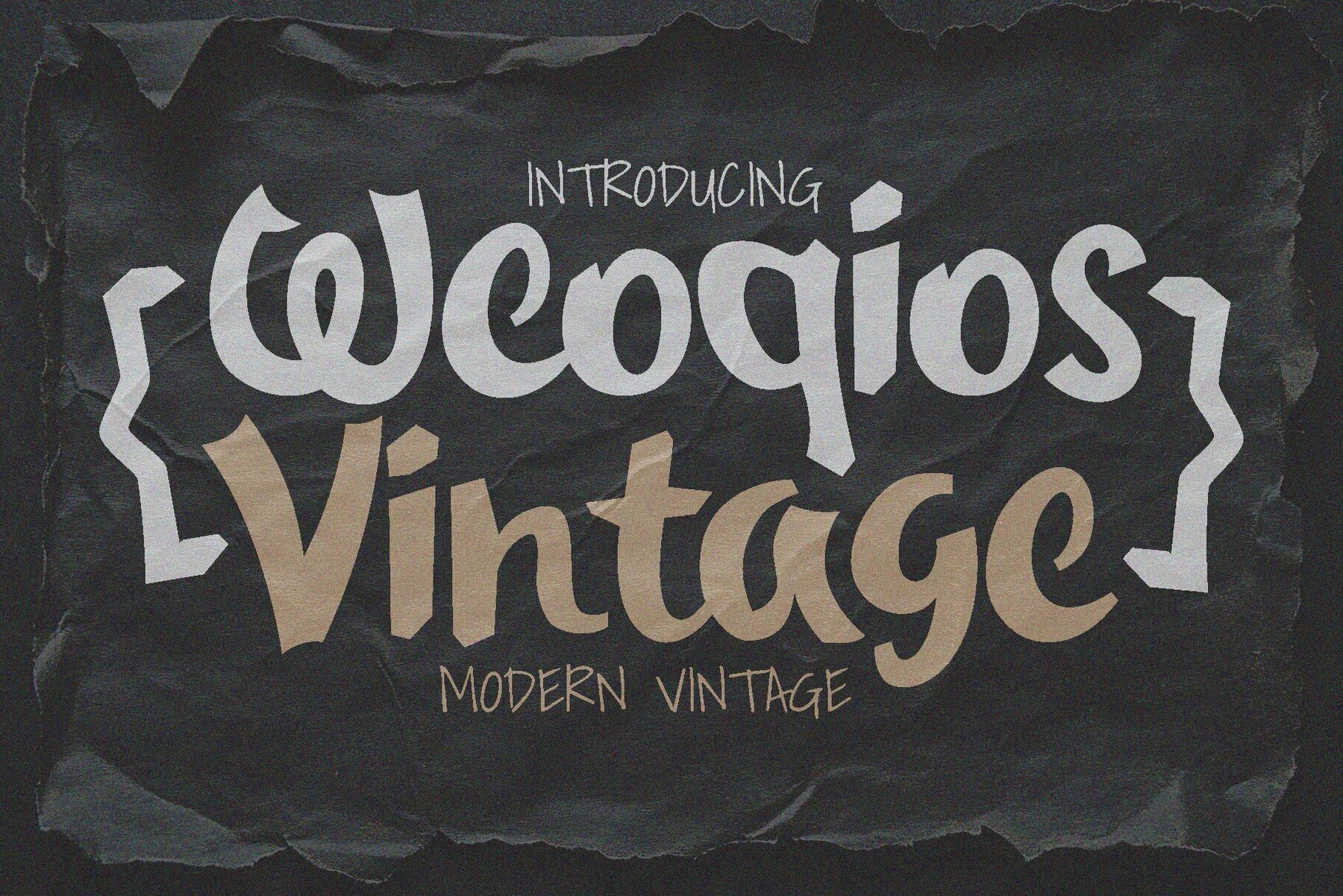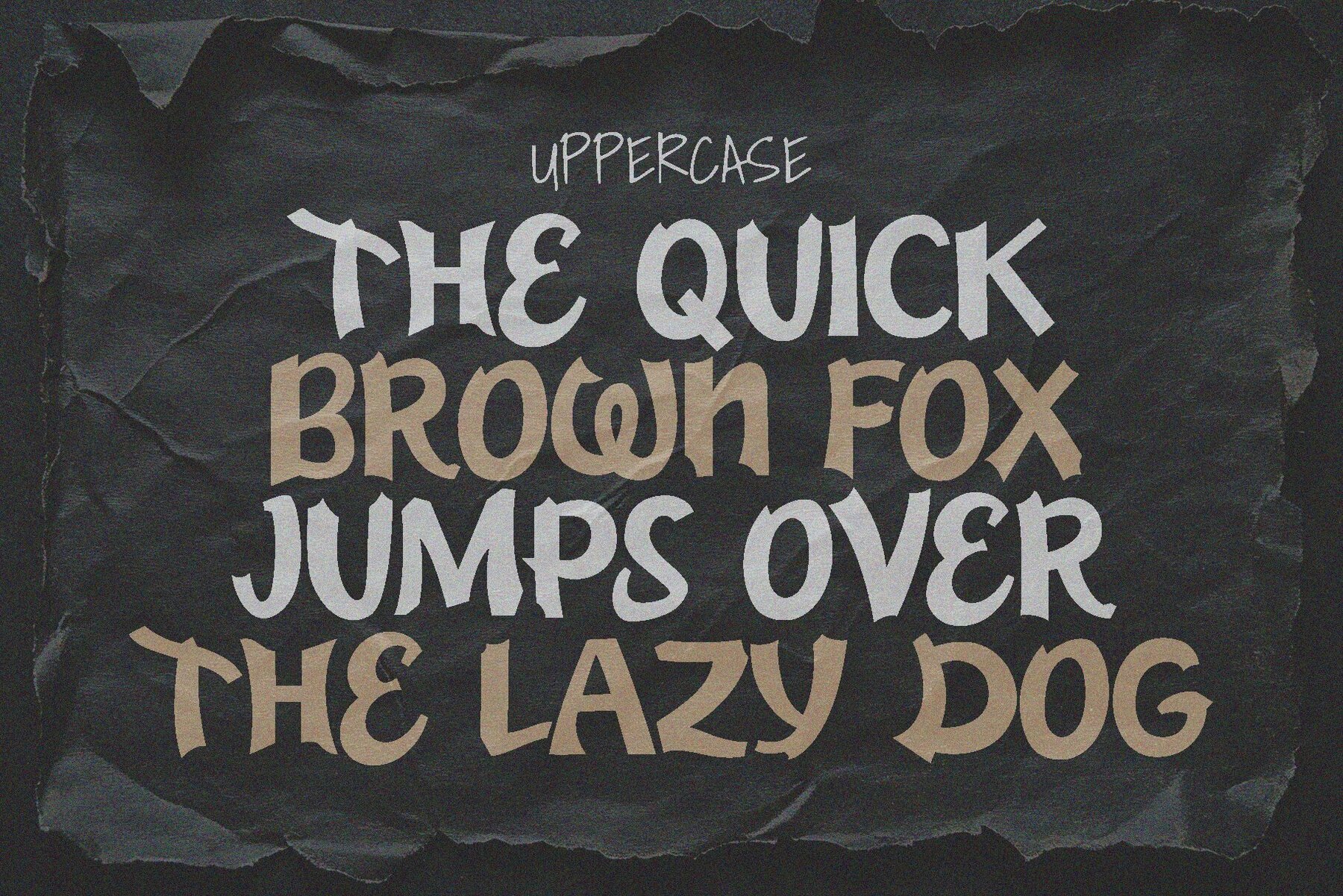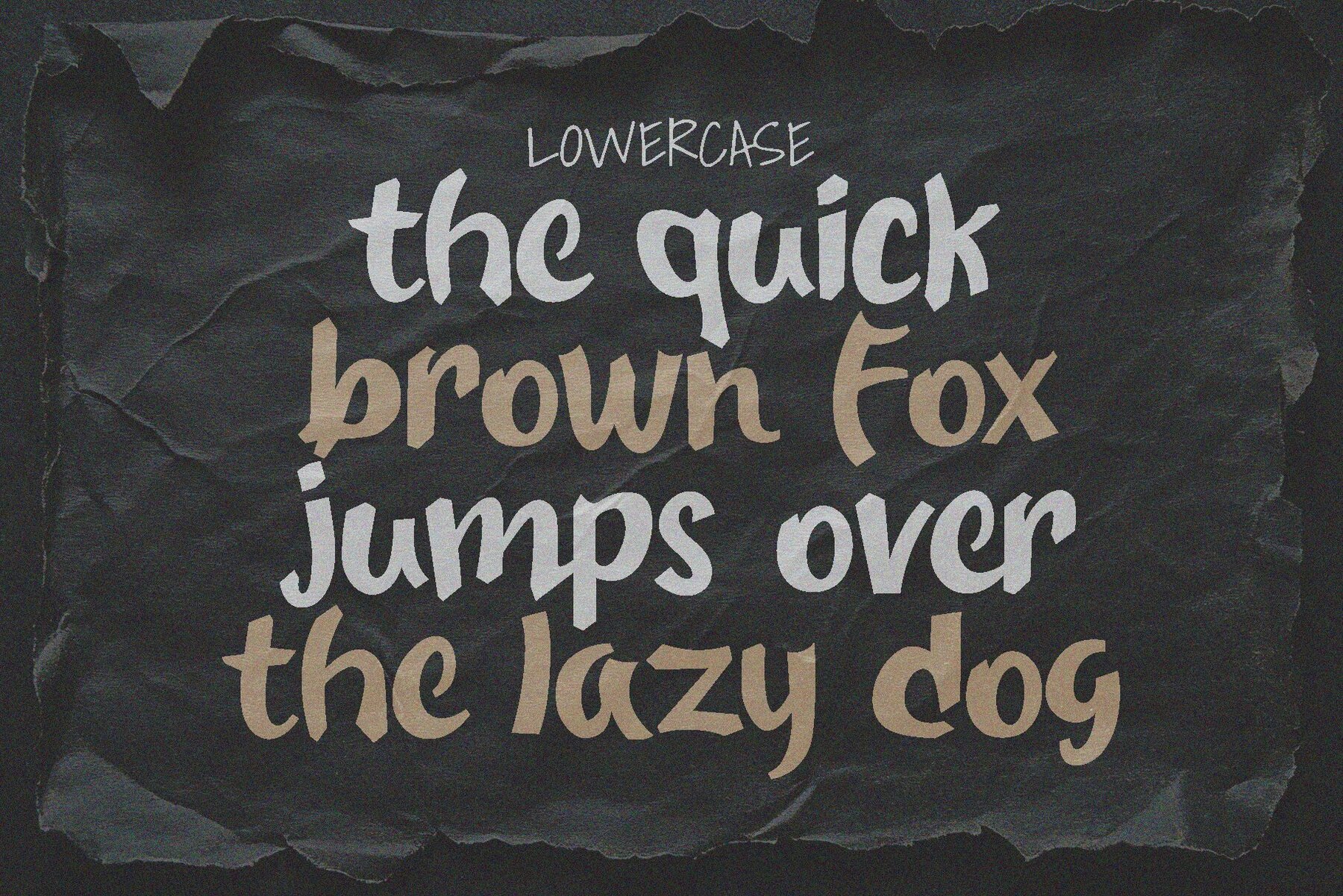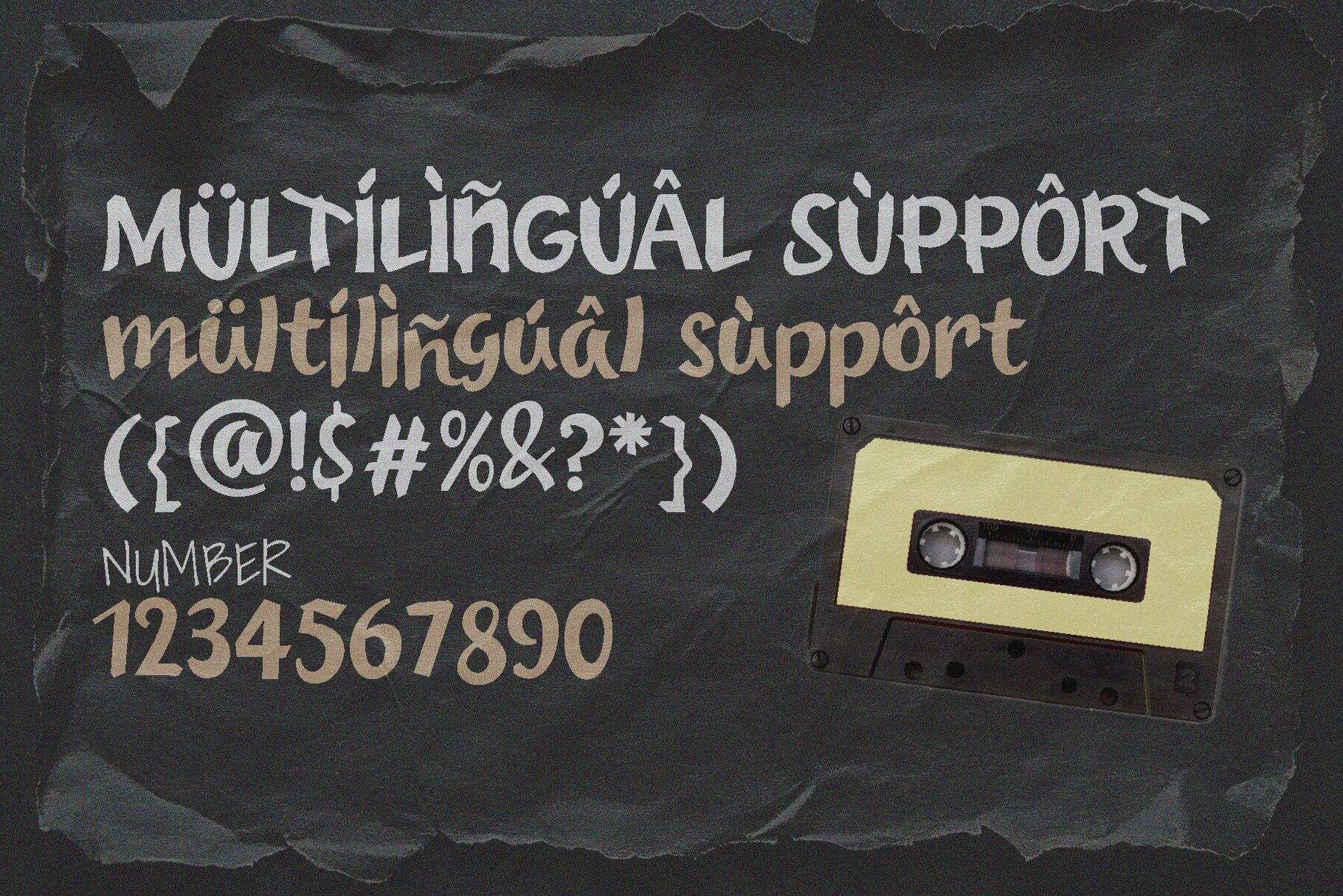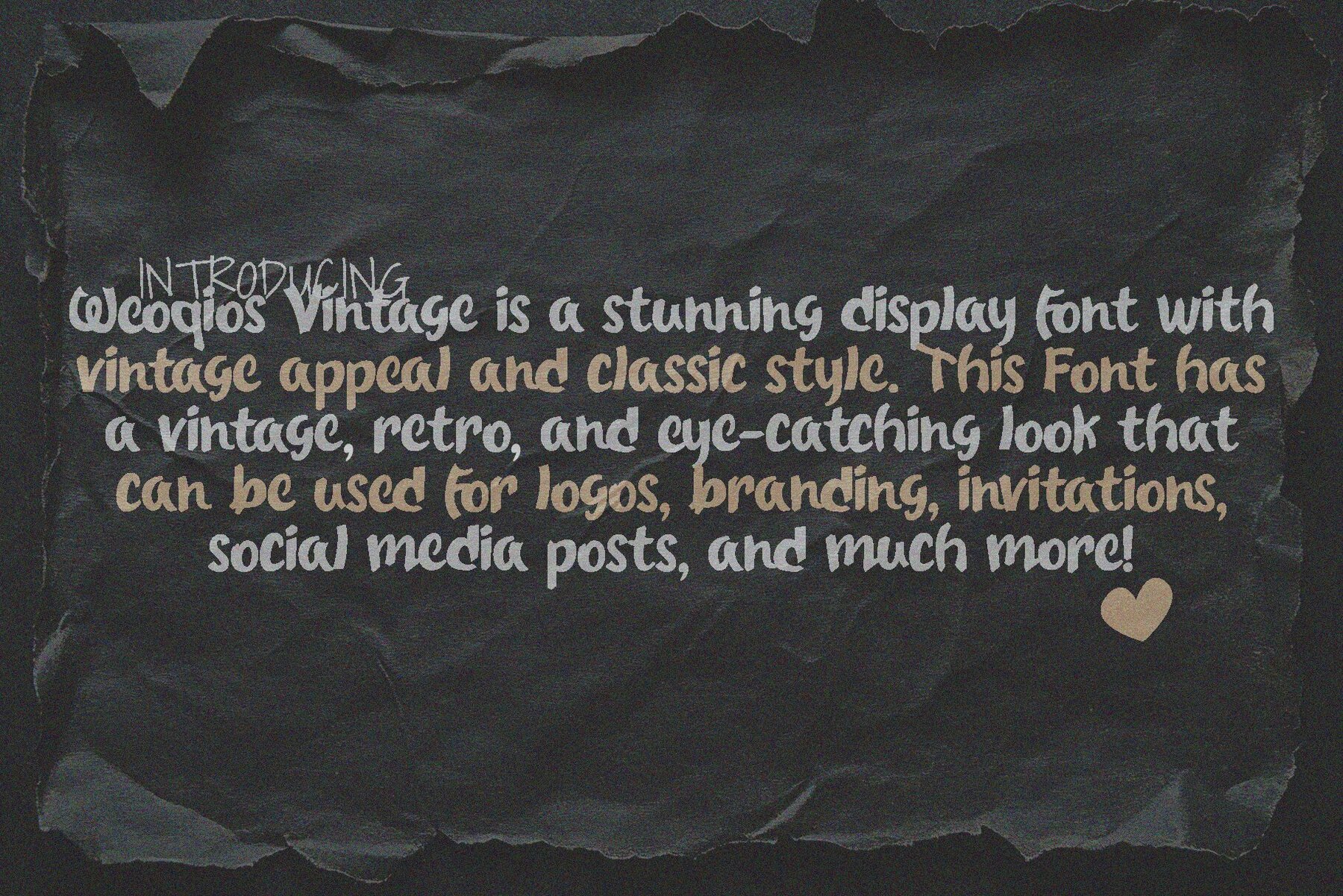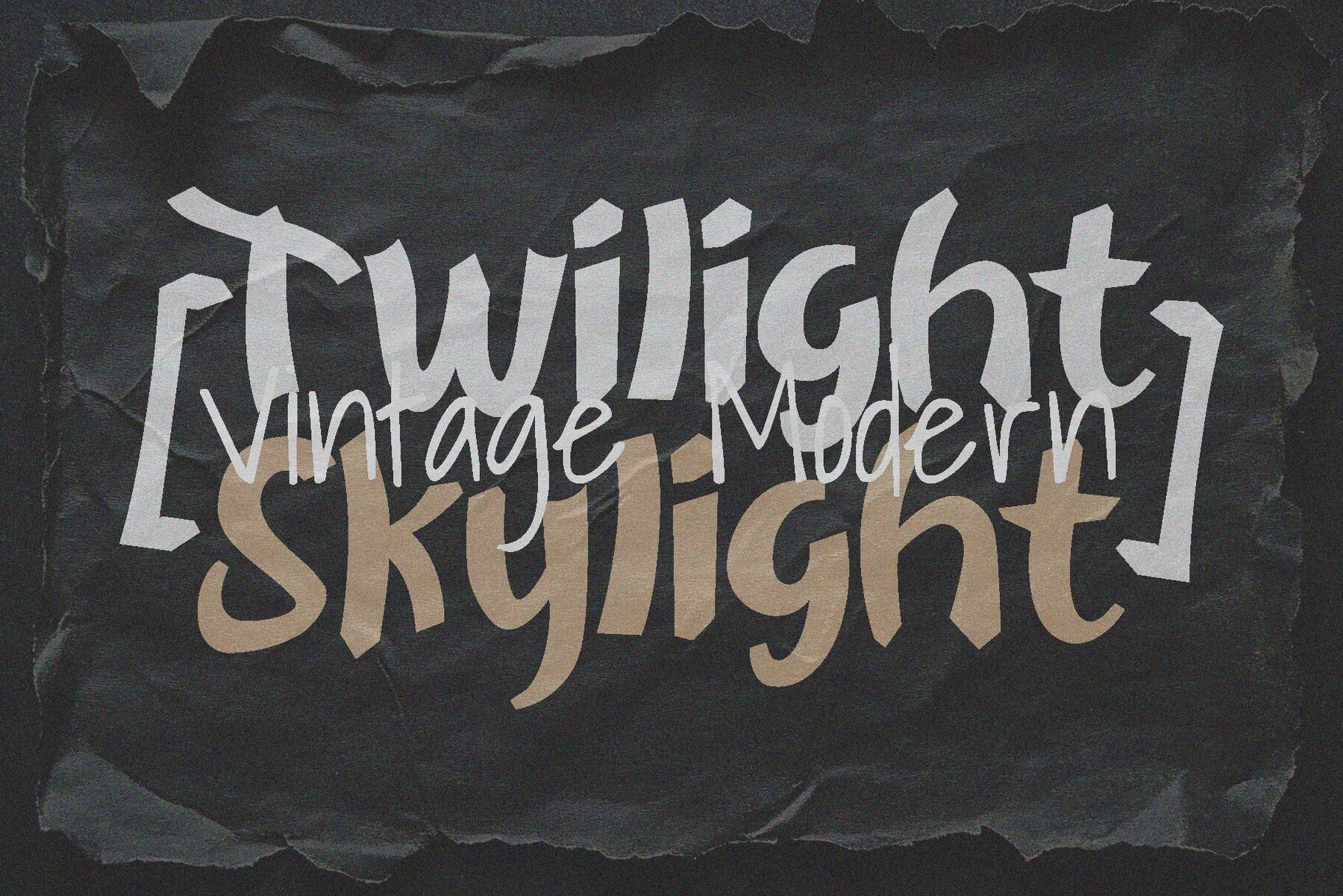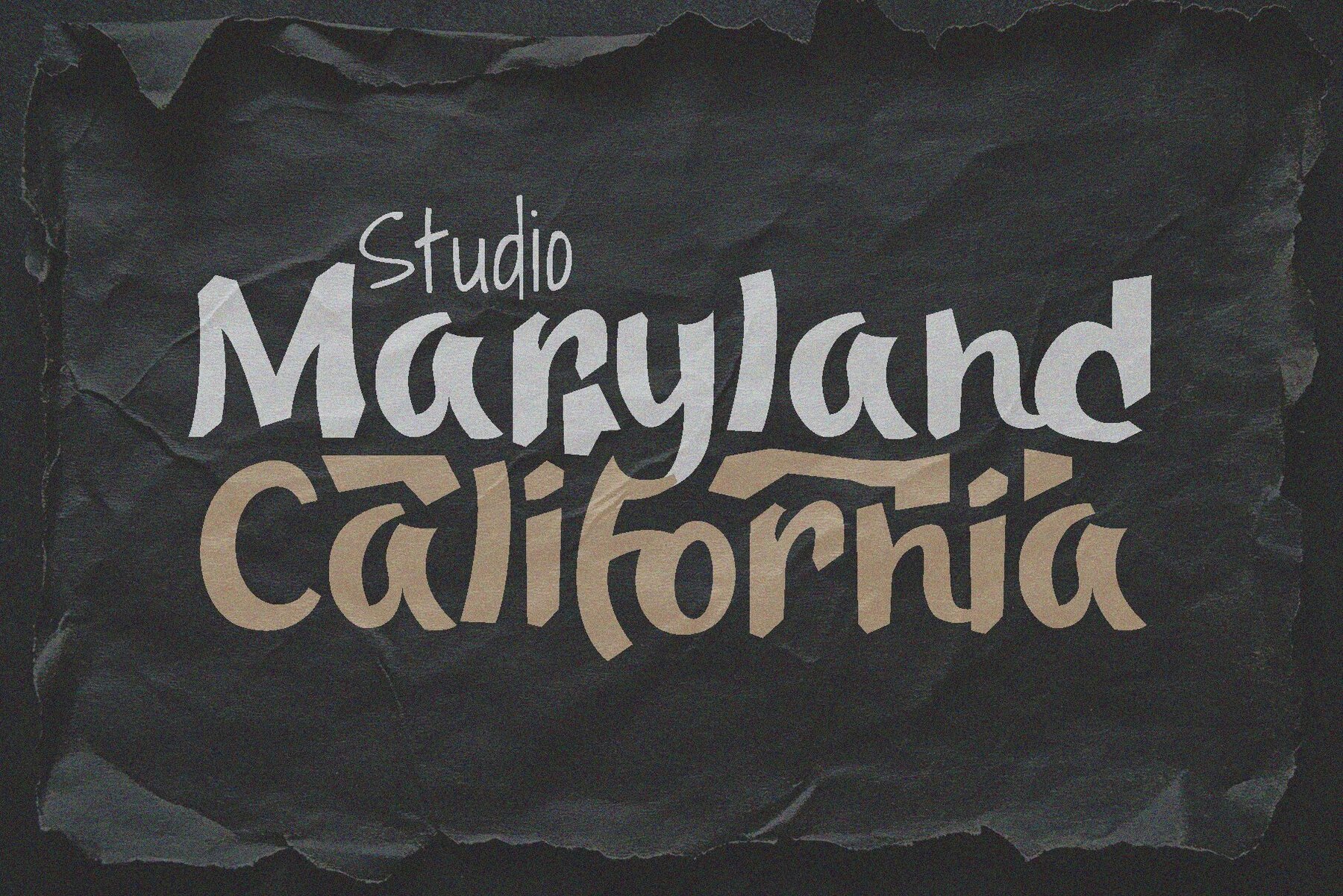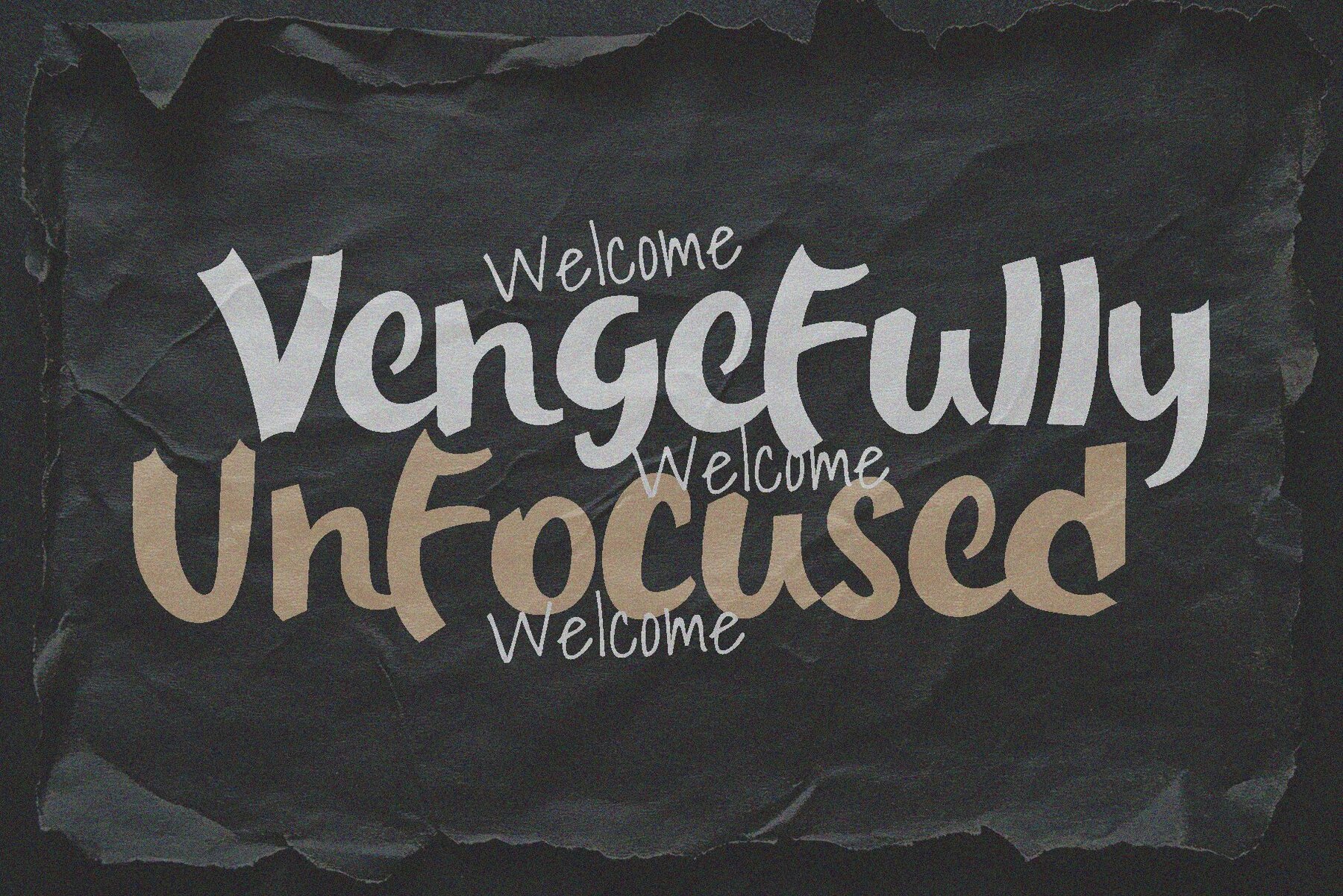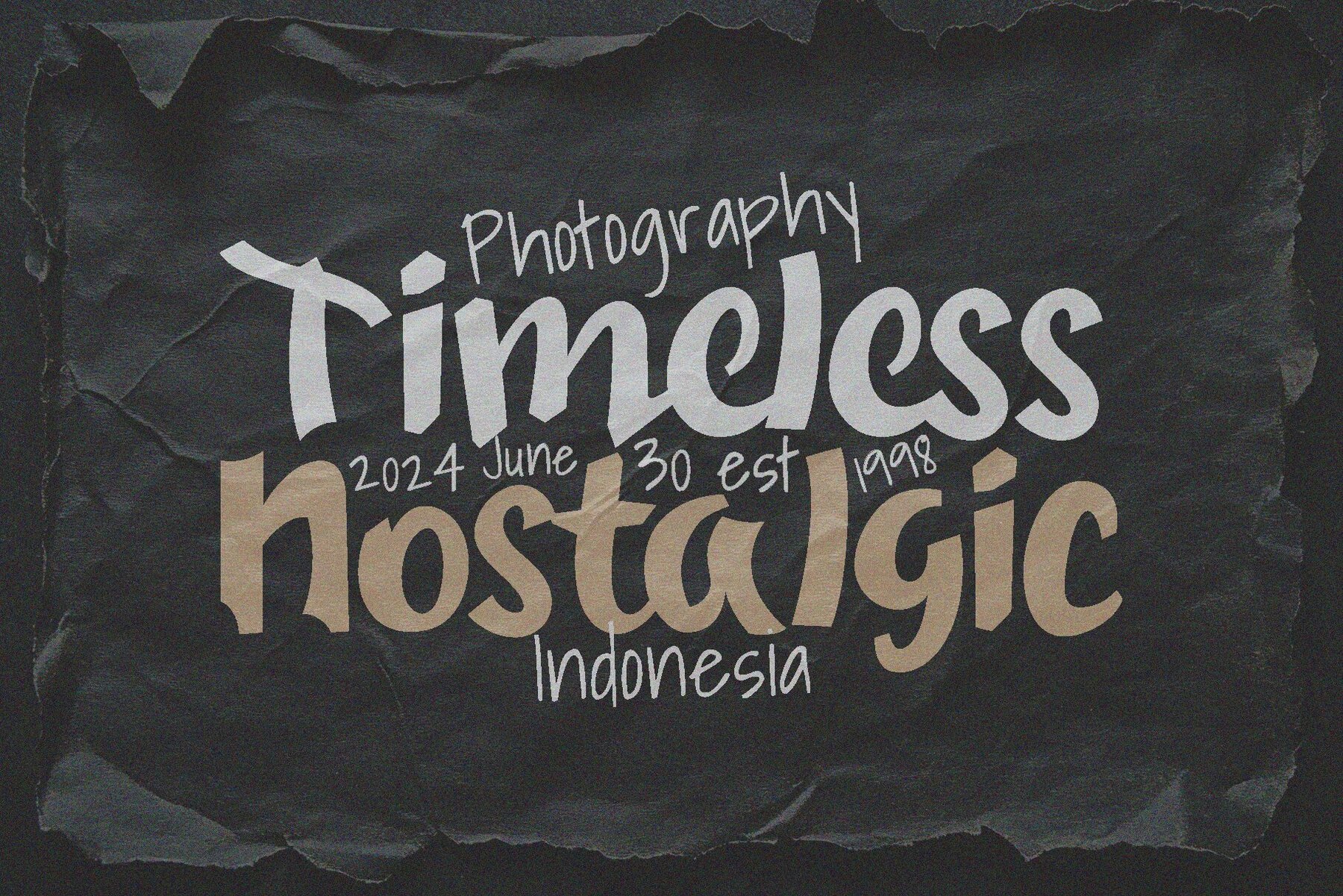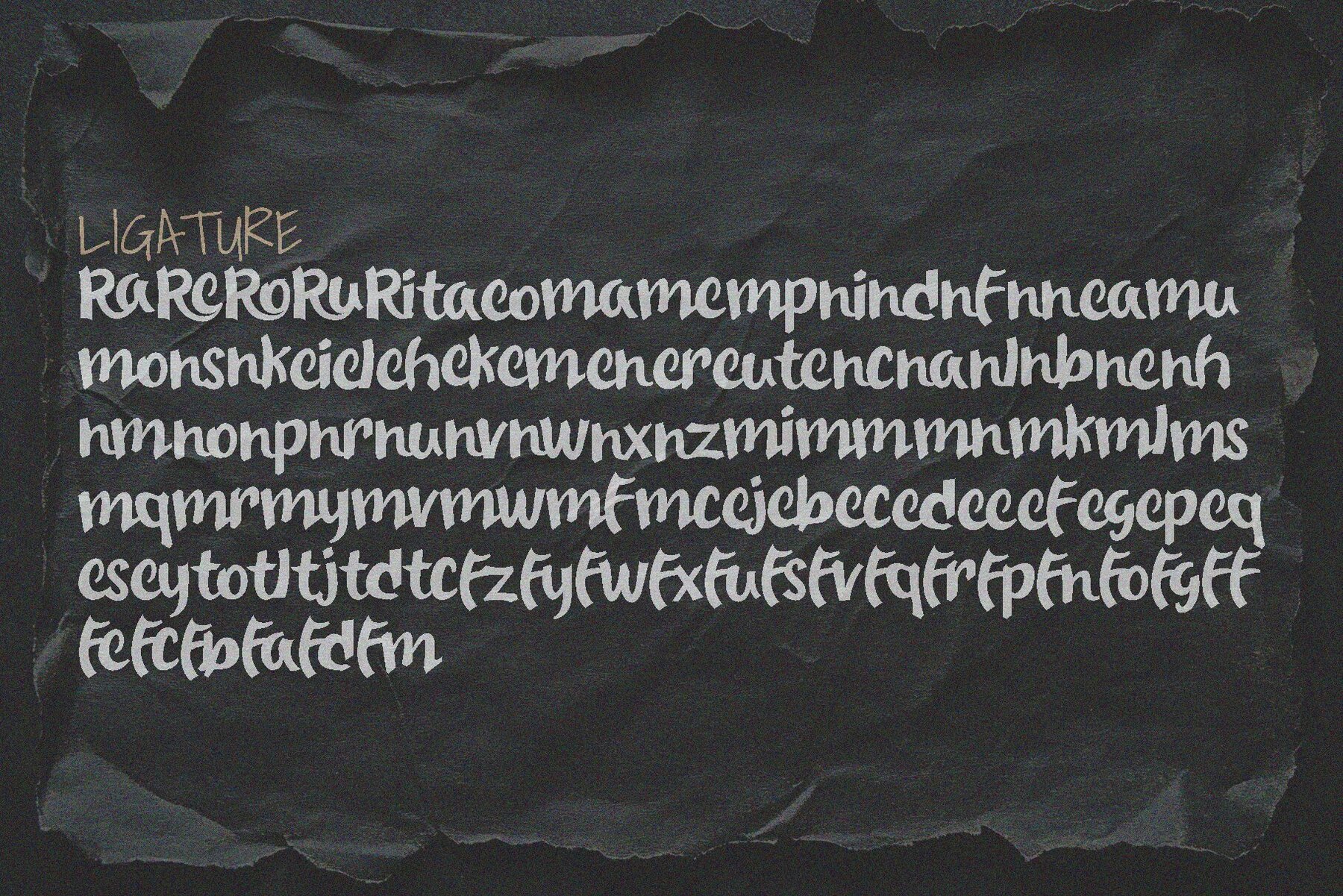
Weoqios Vintage Font
Weoqios Vintage
Discover the allure of Weoqios Vintage, a captivating display font that harmoniously fuses modern vintage aesthetics with timeless charm. Designed to enhance the visual appeal of your work, its bold retro flair and intricate detailing allow your designs to stand out with ease. Weoqios Vintage is ideally suited for applications such as logos, branding, invitations, social media graphics, and more. With multilingual support, this versatile font caters to a global audience, ensuring your message resonates across different languages. Infuse a classic yet contemporary touch into your projects with the enduring elegance of Weoqios Vintage.Weoqios Vintage: A Timeless Display Font